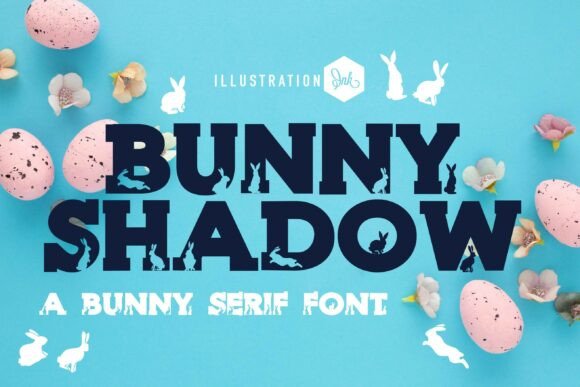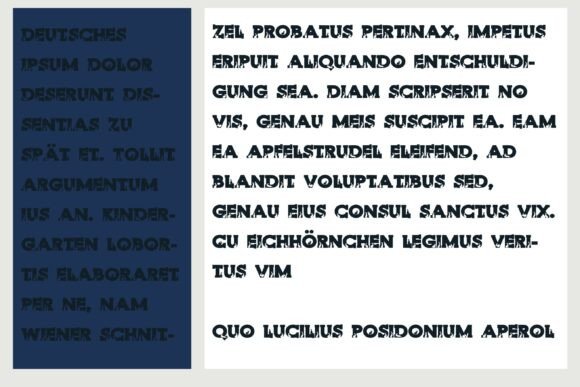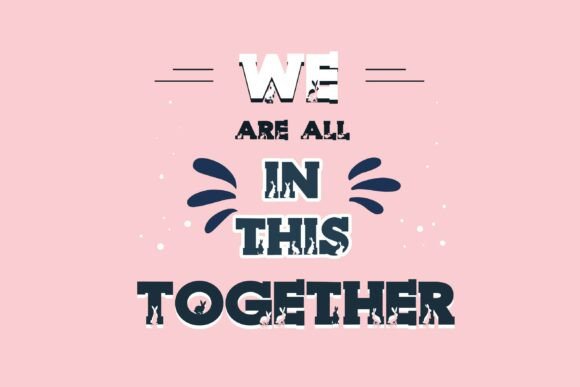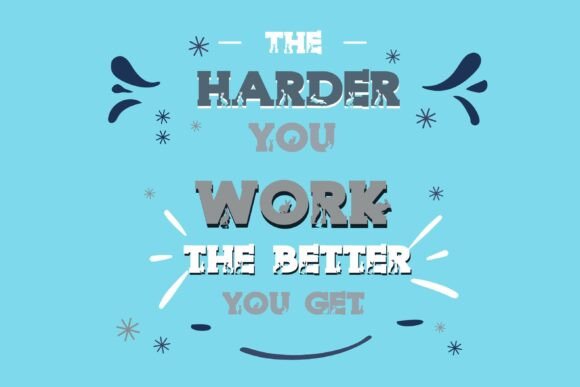
Bunny Shadow Font
About the Bunny Shadow Font
Explore the possibilities with Bunny Shadow Font, a font that offers both beauty and functionality. This hand-crafted font is a whimsical serif with bunny silhouettes.
Bunny Shadow Font’s whimsical nature makes it ideal for projects requiring a touch of playful charm. It excels in headlines, short text blocks on invitations, greeting cards, and children’s book titles, adding a unique visual interest. However, its decorative style is less suitable for body text or UI elements where legibility is paramount. Long paragraphs set in this font would be difficult to read.
This font’s personality is undeniably friendly and approachable. To complement its hand-crafted charm, pairing it with a clean sans-serif like Open Sans for body copy creates a pleasing contrast. Alternatively, a classic serif like Garamond provides a sophisticated counterpoint, maintaining readability while enhancing the overall design.
For a more modern feel, consider pairing Bunny Shadow with a geometric sans-serif font like Montserrat. This combination balances the handcrafted charm with a contemporary edge, making it suitable for branding projects targeting a younger demographic.
Bunny Shadow Font Usage Examples
Bunny Shadow Font Example